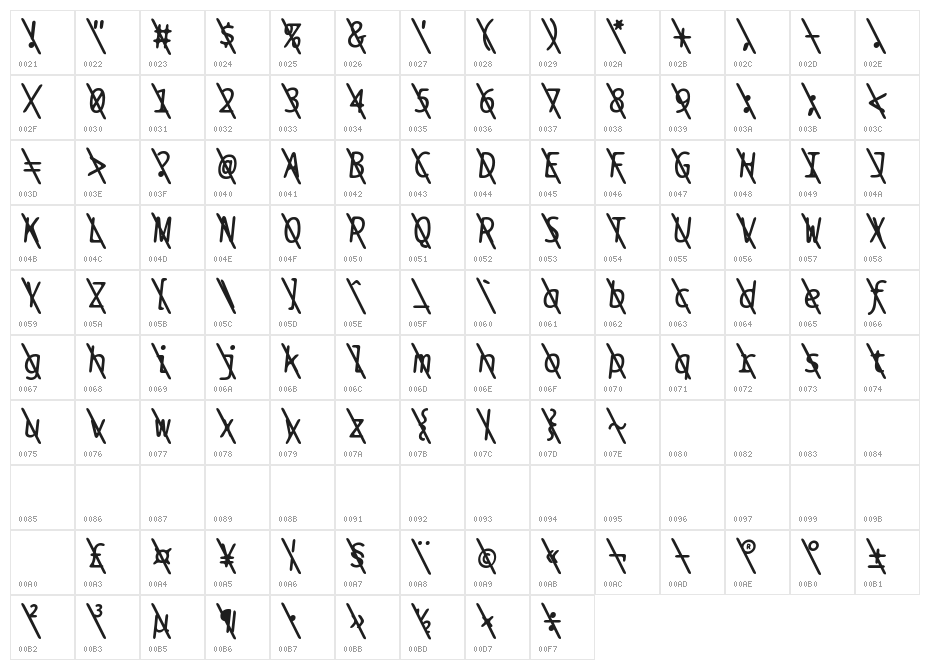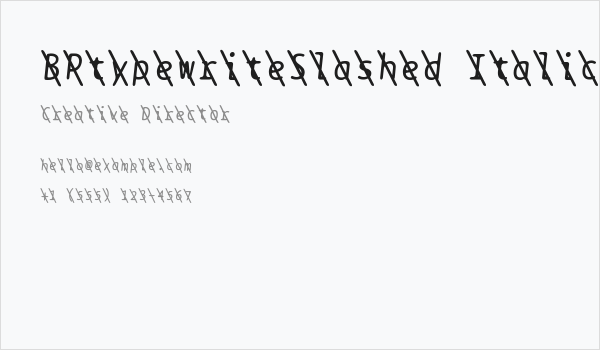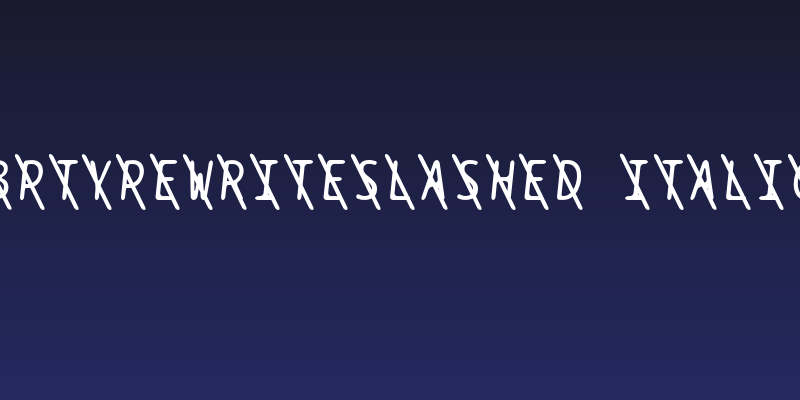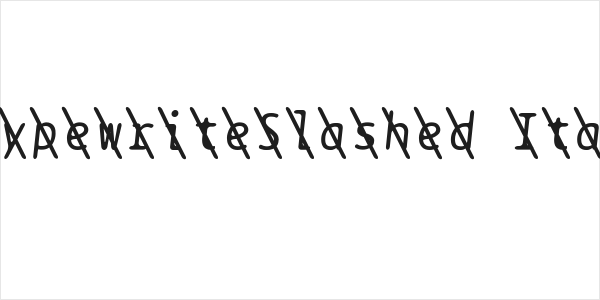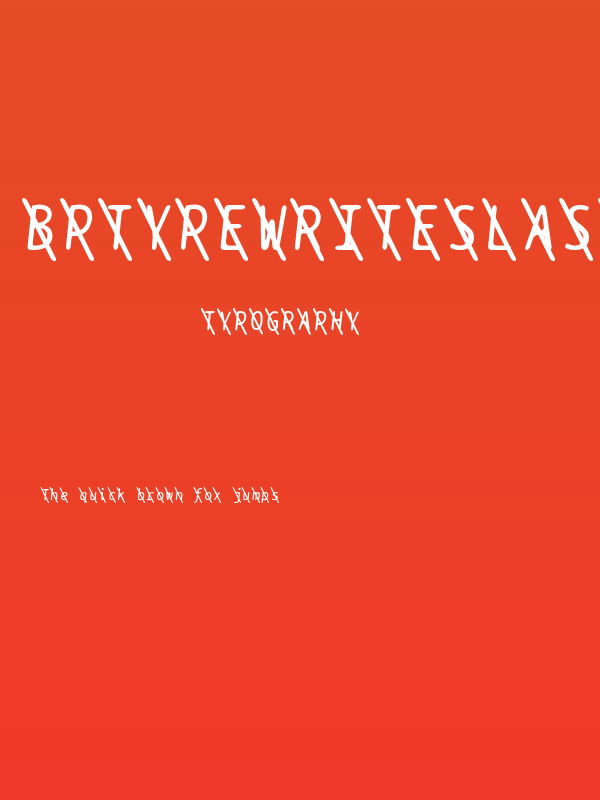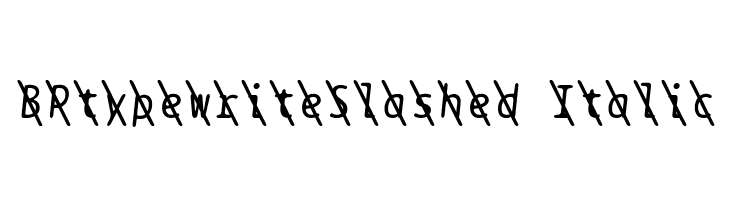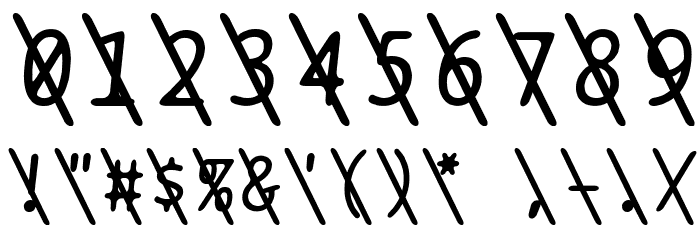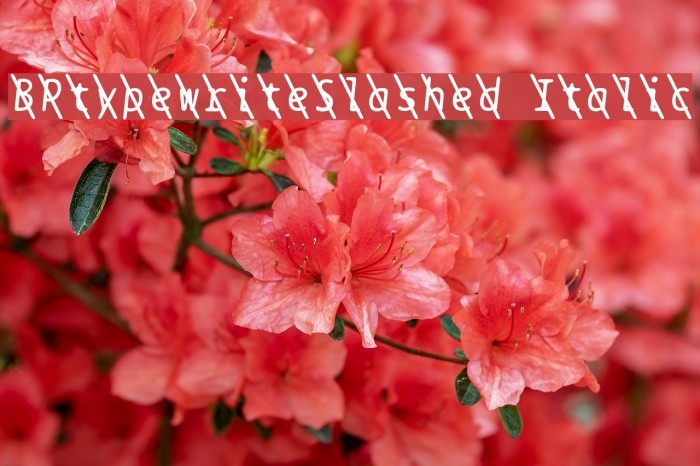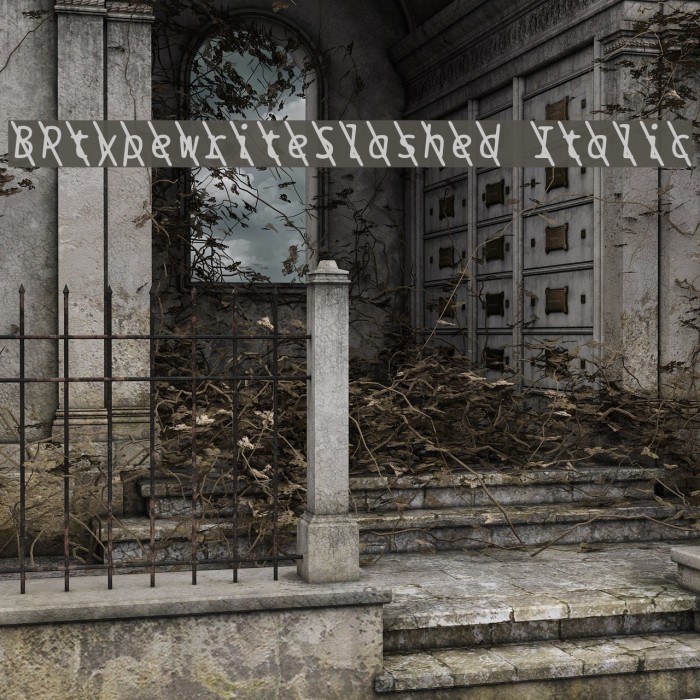
BPtypewriteSlashed Italic Font
BPtypewriteSlashed Italic Description
This font features a unique, slashed design that gives it a dynamic and edgy appearance. The characters are italicized, adding a sense of motion and fluidity. Each letter is distinct, with sharp angles and a hand-drawn quality that suggests a modern, artistic flair. The uppercase and lowercase letters maintain a consistent style, while the numbers and special characters are equally expressive, making this font versatile for creative projects. The slashes through the characters create a striking visual effect, enhancing its decorative appeal.
| Proposed Projects | Ideal for artistic posters, edgy branding, album covers, and modern digital art. |